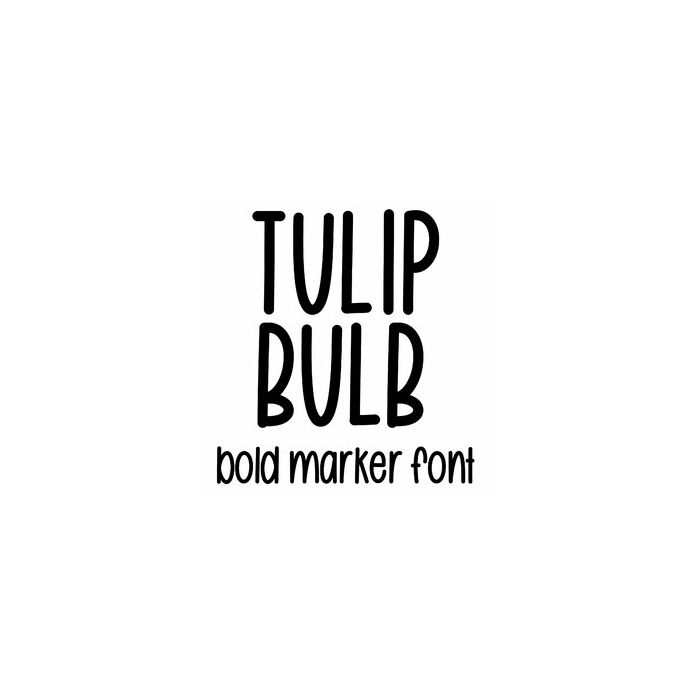
Cute bold marker version of tulip bulb handwriting font. Fun for holiday and birthday crafts, planners, monograms, stickers, labels, and personalization projects. Includes alphabet, numbers, and punctuation.